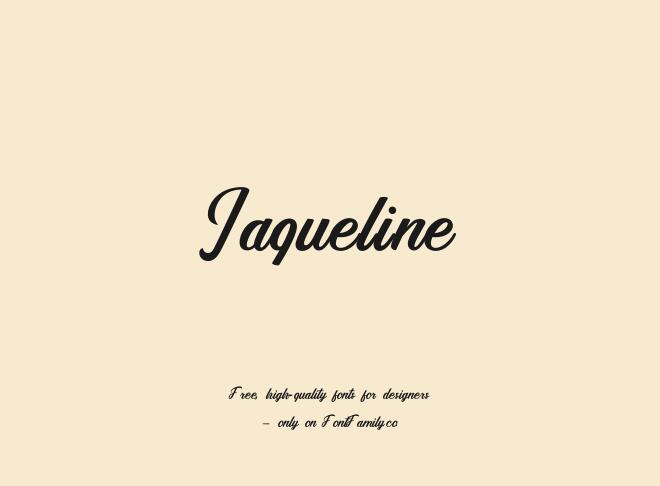
Jaqueline Font
Jaqueline Font is a graceful and intricate script typeface that exudes elegance and sophistication. With its smooth curves and flowing lines, it's perfect for wedding invitations, brand logos, and other designs that require a touch of elegance. Its handwritten style makes it appear personal and intimate, making it a superb choice for designs that aim to evoke emotions. Compared to other fonts, Jaqueline Font stands out due to its unique blend of simplicity and complexity, making it a versatile typeface that works well in a variety of design contexts. Its fluidity makes it a great choice for designers looking for a font that can seamlessly blend into their design while adding a touch of personality and character. Free for personal use, Jaqueline Font is a must-have in every designer's toolkit.